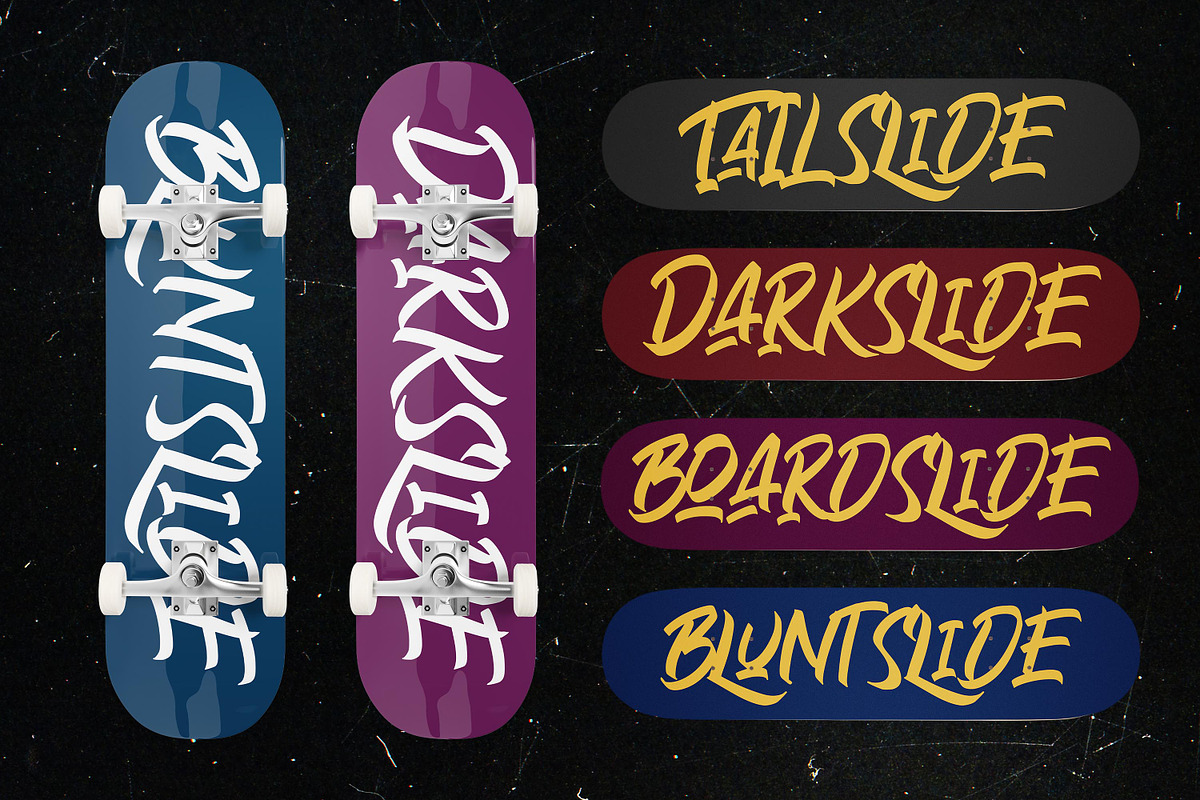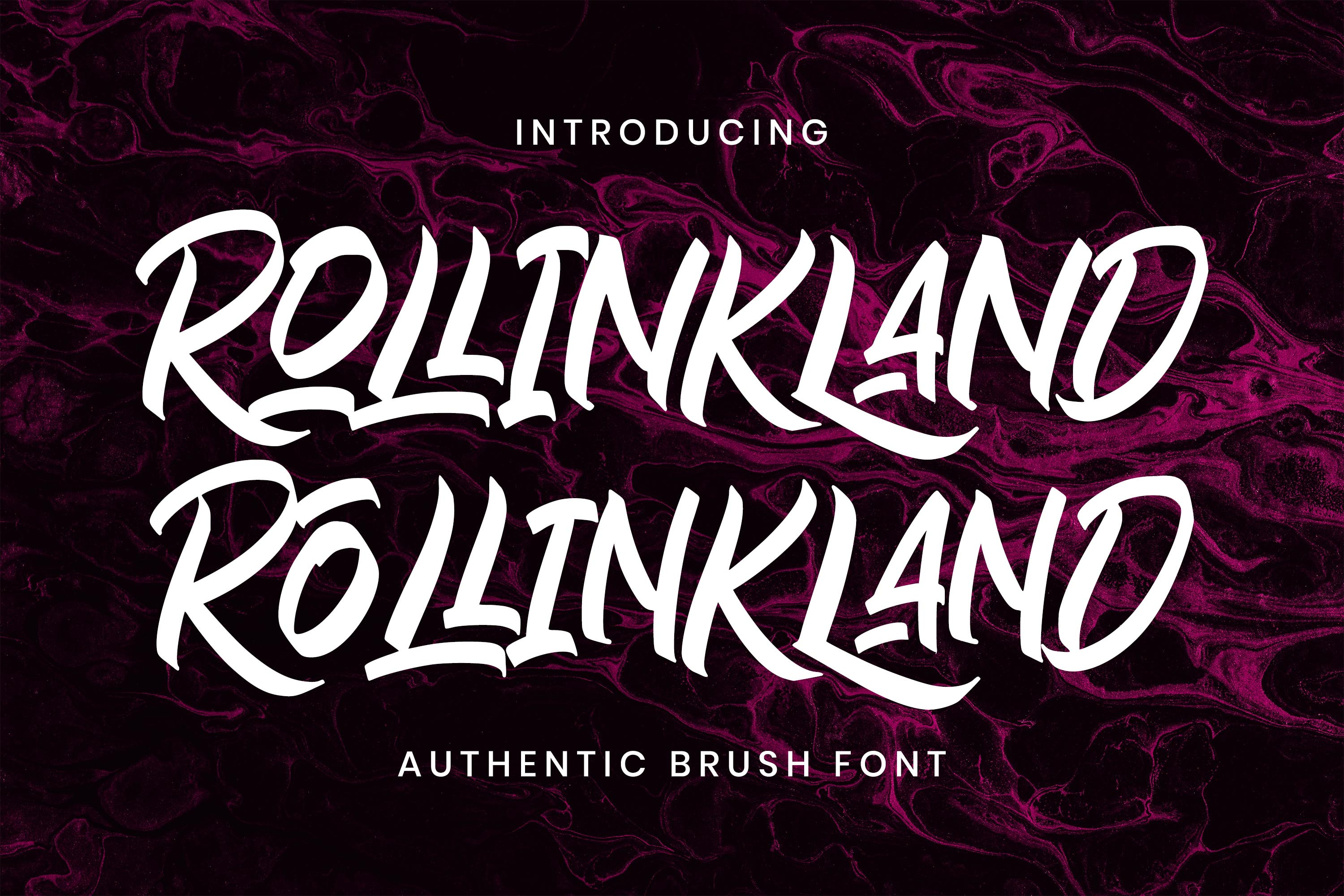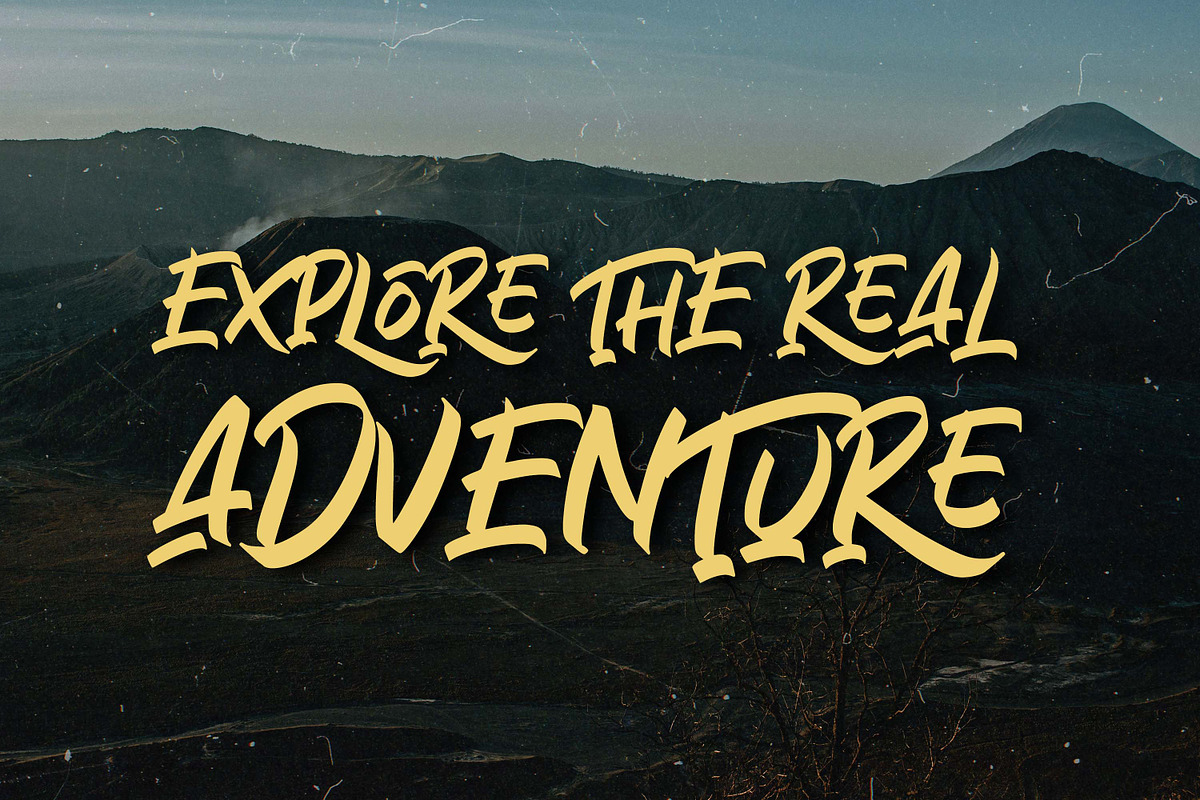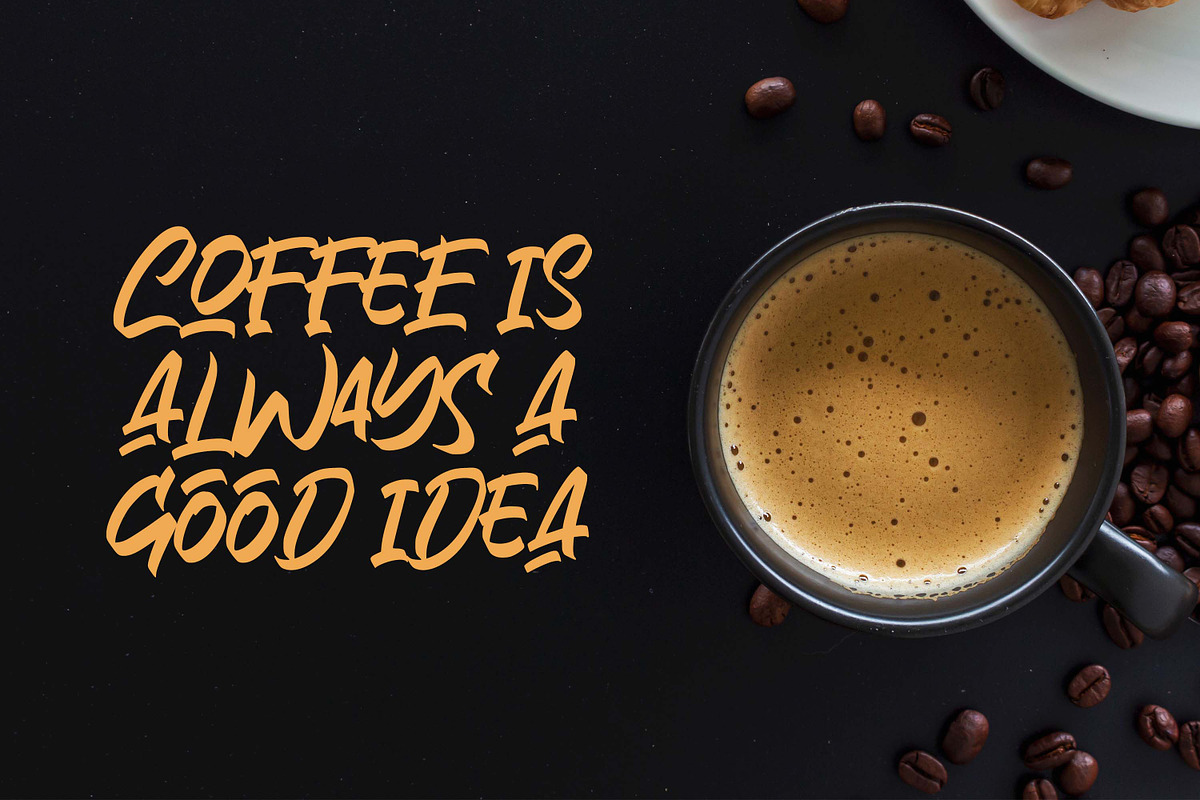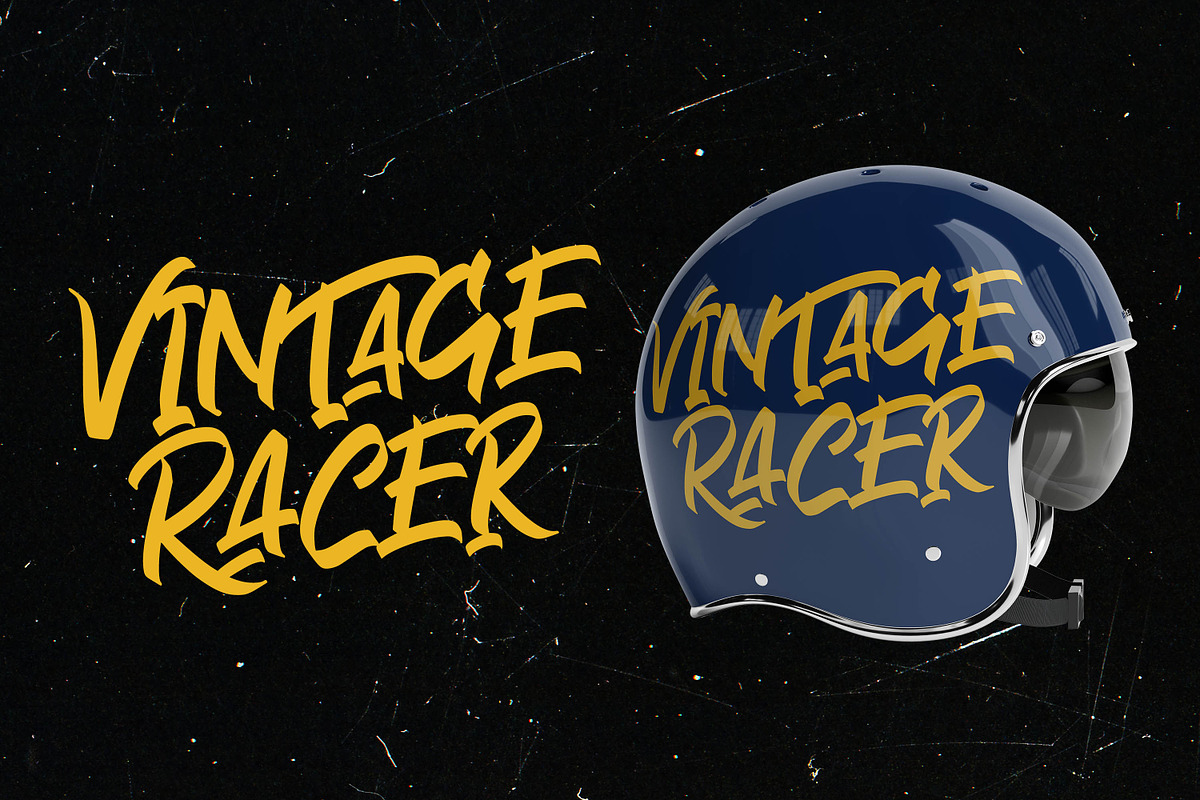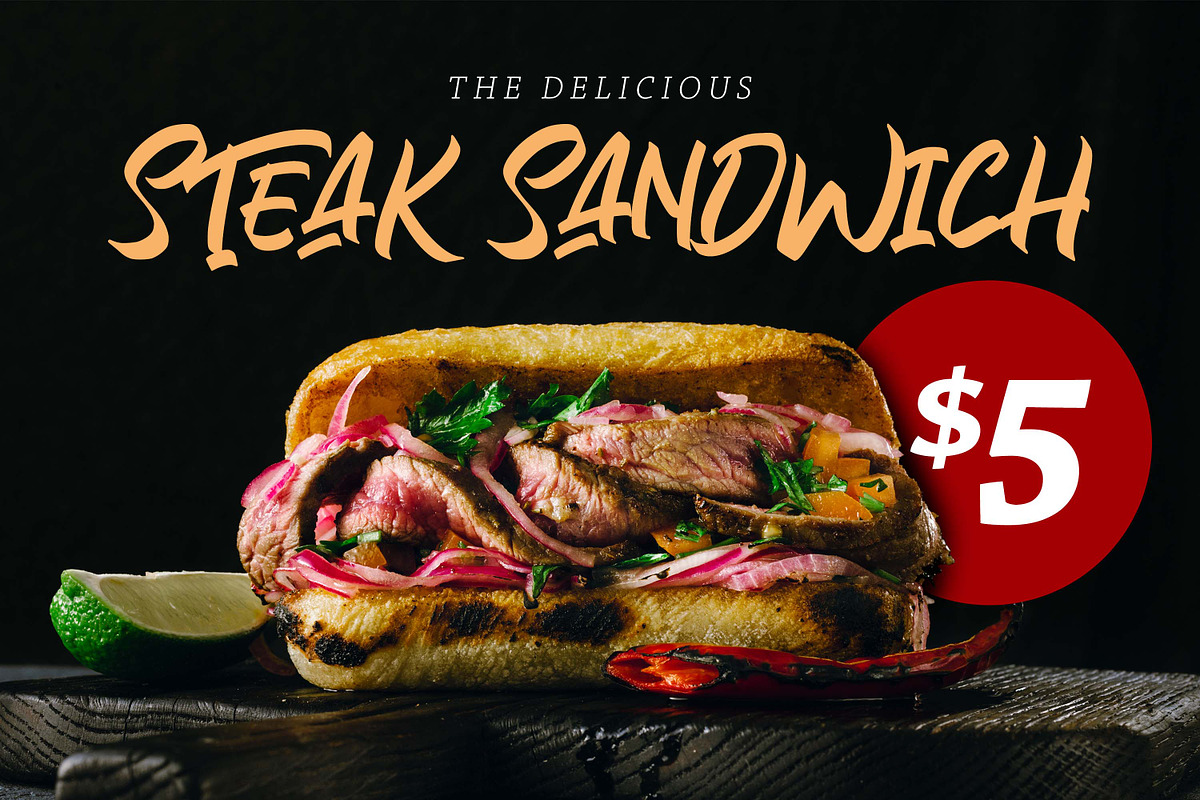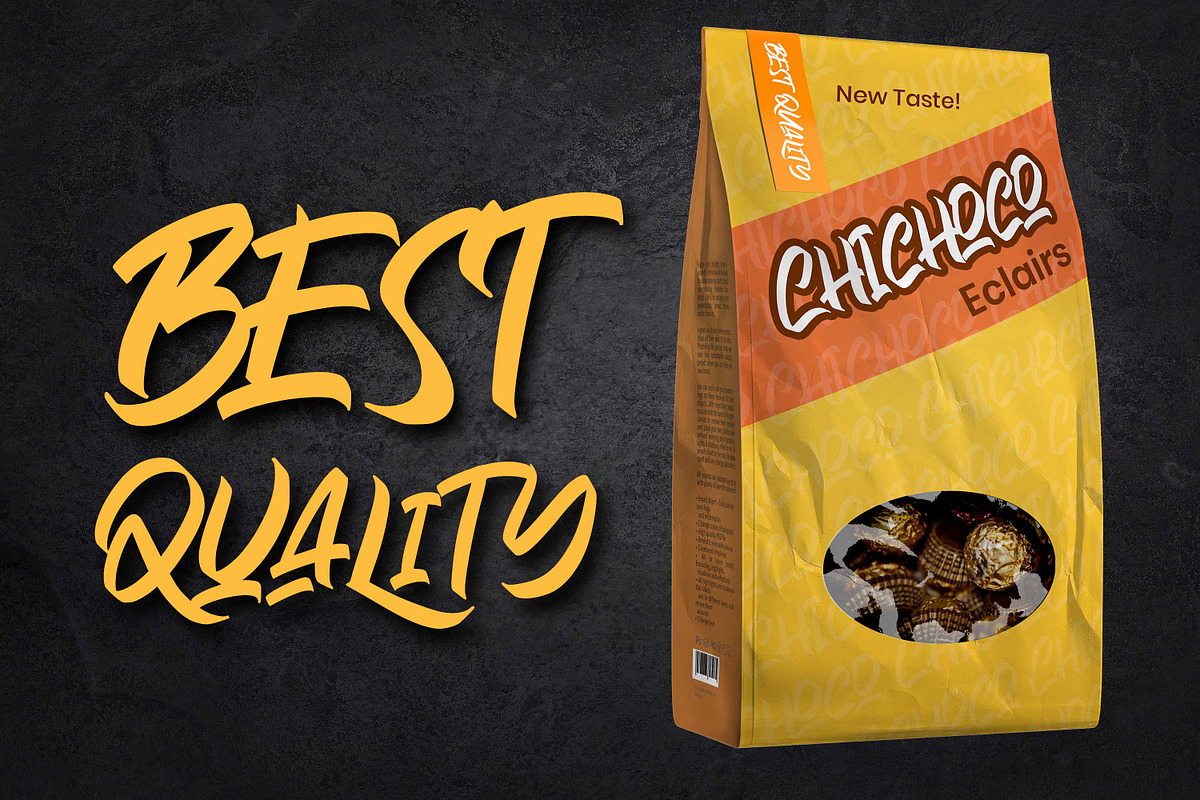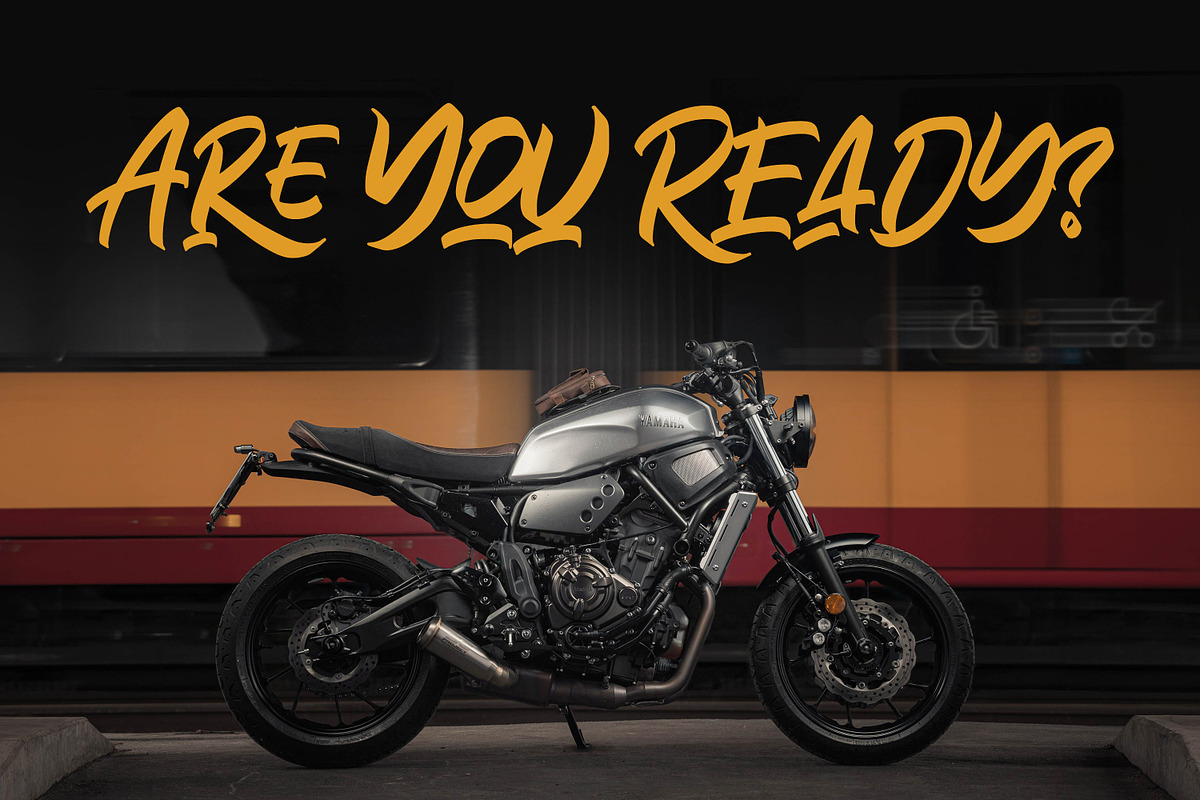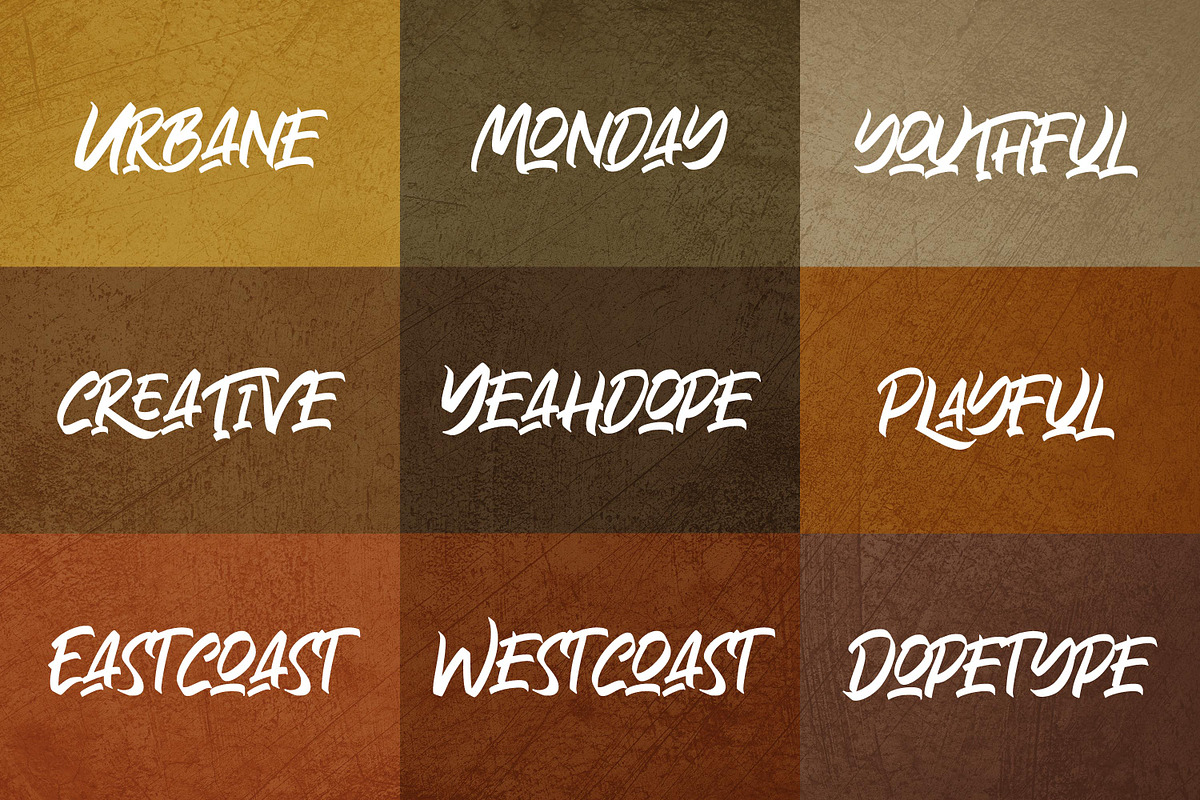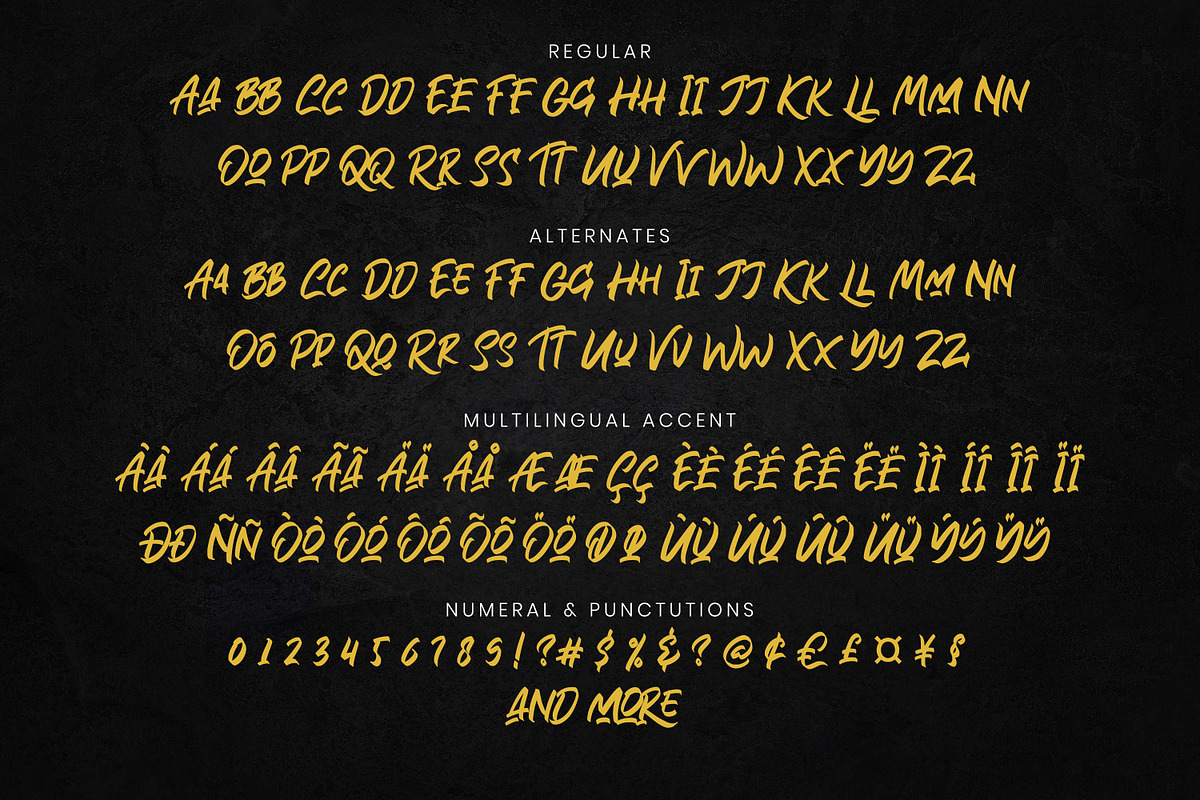
Rollinkland - Authentic Brush Font
Rollinkland is a Authentic brush font with a clear style and dramatic movement this font is great for your next creative project such as logos, printed quotes, invitations, cards, product packaging, headers, Logotype, Letterhead, Poster, Apparel Design, Label, and etc.
Rollinkland comes with uppercase, lowercase, numerals, accents (Multilingual characters), punctuations and so many variations on each character include OpenType alternates, swash to let you customize your design